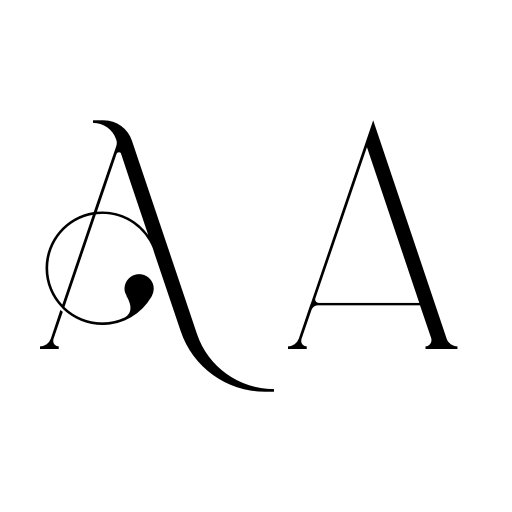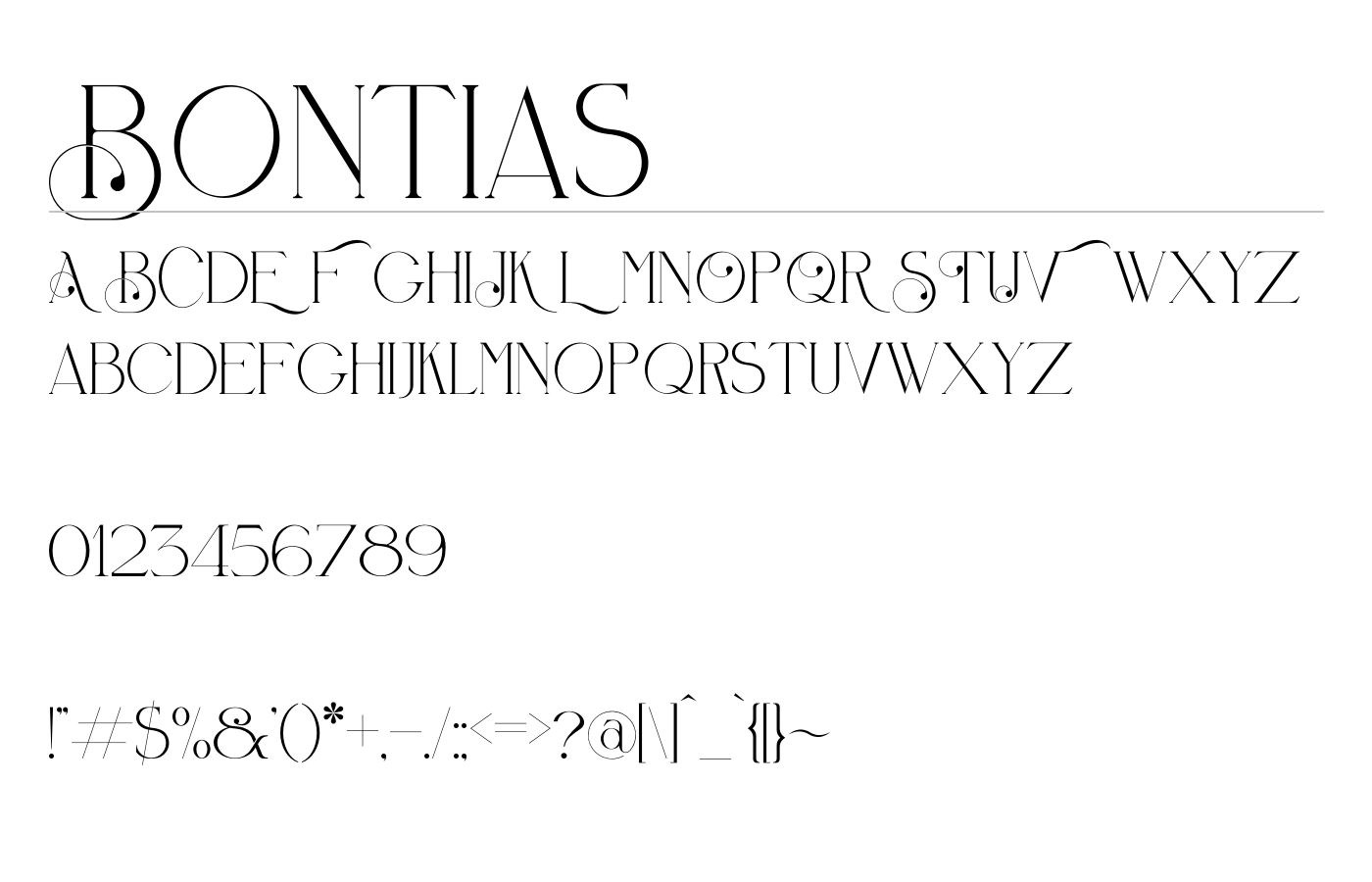
Bontias is a delicate and elegant serif font characterized by its extremely thin strokes and high contrast between thick and thin lines. Its tall, narrow letterforms paired with distinctive swashes and ornamental details give it a refined, luxurious feel, making it perfect for upscale branding, fashion editorials, or sophisticated invitations. This font works best in headlines or decorative uses where its unique style can shine without losing legibility.
Bontias Font